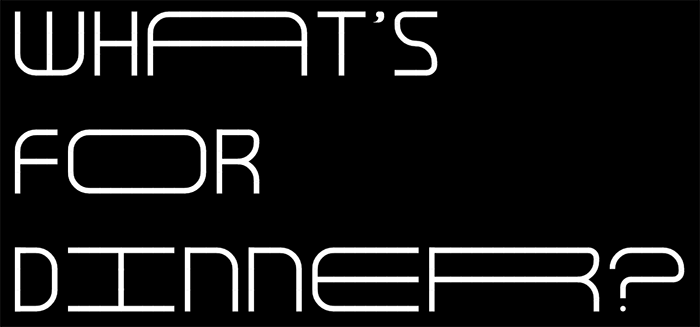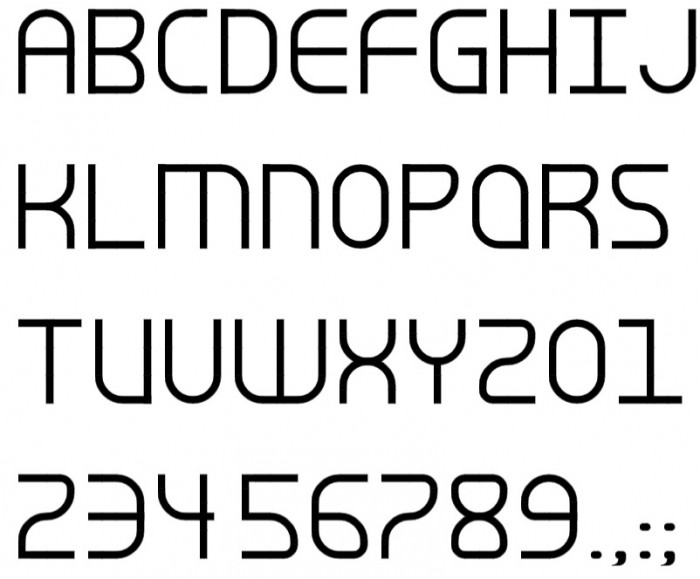
• A pretty simple looking variable sans-serif design.
The font allows you to modify the width of nearly every glyph. The one exception that can not be changed is the exclamation mark. I tried to simplify it the best I could, but it remains a little tricky to use, sorry.
HOW TO USE:
To type any sensible text you should start with the uppercase of a certain letter (this will create the left side of it). Followed by the corresponding extender to widen the glyph (repeat this step for a even wider result), and to complete the full letter you close the string with the lowercase glyph for this specific letter (this will create the right side).
There are a couple of glyphs that work slightly different.
These are I,M,T,W,Y, numerals and some punctuations.
To widen "I and T" the extenders are typed before and after the actual letter combination instead of in between.
M,W and Y are split in three (center stem is isolated) in order to allow one to make changes on both sides. To correctly type one of these you start with the uppercase for this specific letter, followed by the corresponding extender, followed by the corresponding center stem, followed with the extender once more, and as last to complete the full letter close the string with the lowercase glyph for this specific letter.
To extend the colon and semi-colon you complete the string for either period or comma first, followed by ; (semi-colon). This will place a dot above it.
And as last, to make a underscore simply use the string for period but with extra extenders.
The numerals work as listed bellow:
1|_
•  2z
#3
4-|-
5s
6s
7*
8b
9$
0o
The extenders are located in the following locations:
` - _ # = :
The isolated stems are located in the following locations:
|  }
It's a pretty standard style variable (width) typeface design. thalamic created a much more awesome but very similar style typeface a while ago, which can be found here: tm Extend
The numeral 1 works like this: 1|_